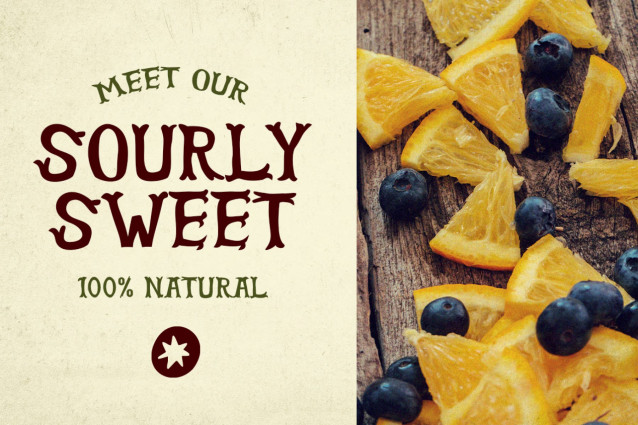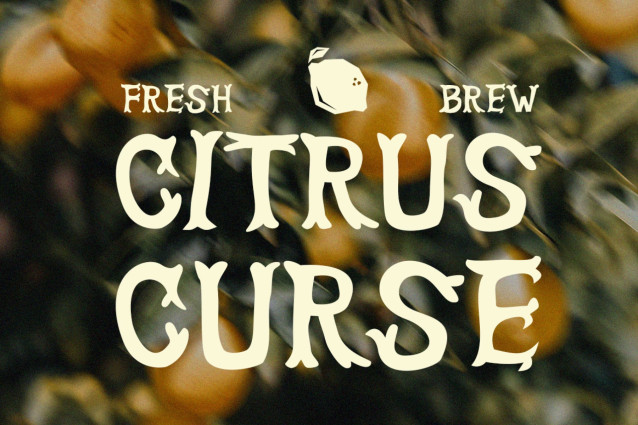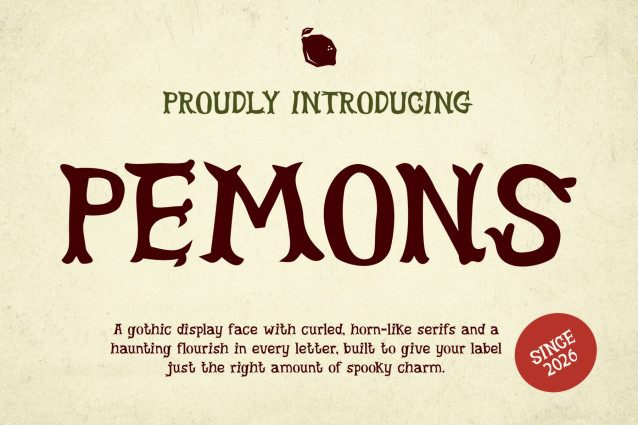
Kids Font PEMONS is a fun and charming display font. It blends a spooky mood with a sweet, playful personality. With its bold letters, PEMONS adds instant character to your designs. Moreover, its handcrafted shapes create a unique vintage feel. The expressive curves make every word more lively. At the same time, the letters remain bold and easy to read. In addition, PEMONS supports 67 languages for international creative projects.
Whether you create kids’ designs or Halloween artwork, Kids Font PEMONS fits perfectly. Furthermore, it works well for children’s books and playful branding. You can also use it for logos, posters, and packaging. Additionally, PEMONS suits T-shirts, stickers, and invitations. It also works beautifully for labels and social media graphics. Because of its unique style, PEMONS stands out easily. As a result, your designs can feel more fun and memorable.